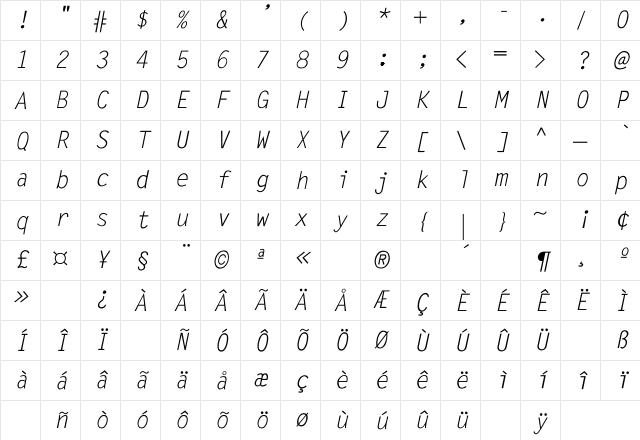
LetterGothic-Italic Regular
Complete LetterGothic-Italic Regular glyph index. Displaying only characters natively supported by LetterGothic-Italic Regular font.
Design Context for LetterGothic-Italic
LetterGothic-Italic takes a clean, functional approach - its unadorned letterforms prioritise legibility and work reliably across screen and print environments. The slanted form adds forward momentum and visual energy.
Font Pairing: Works well alongside a characterful serif or display font that can carry the expressive load while LetterGothic-Italic handles the functional copy.
Pro Tip: Use LetterGothic-Italic for UI labels, navigation, and short-form body copy where clean legibility is the priority.